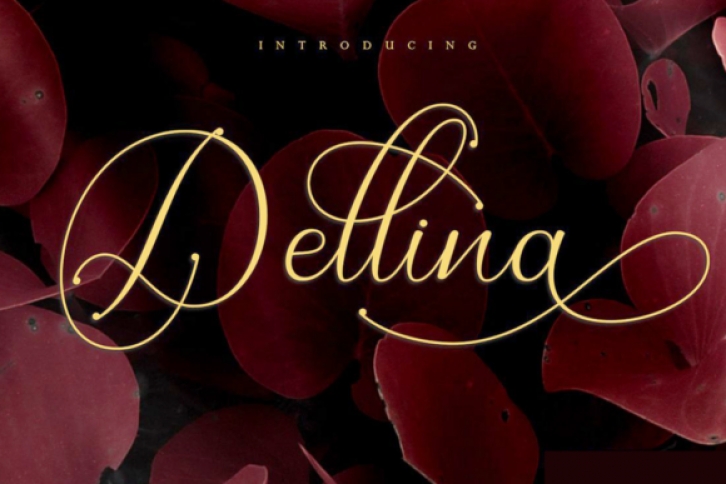
Dellina is a luxurious and romantic script font that is complimented with calligraphy swashes. Imagine using this beautiful font on wedding invitations, greeting cards, branding, and any other project that needs a touch of elegance.